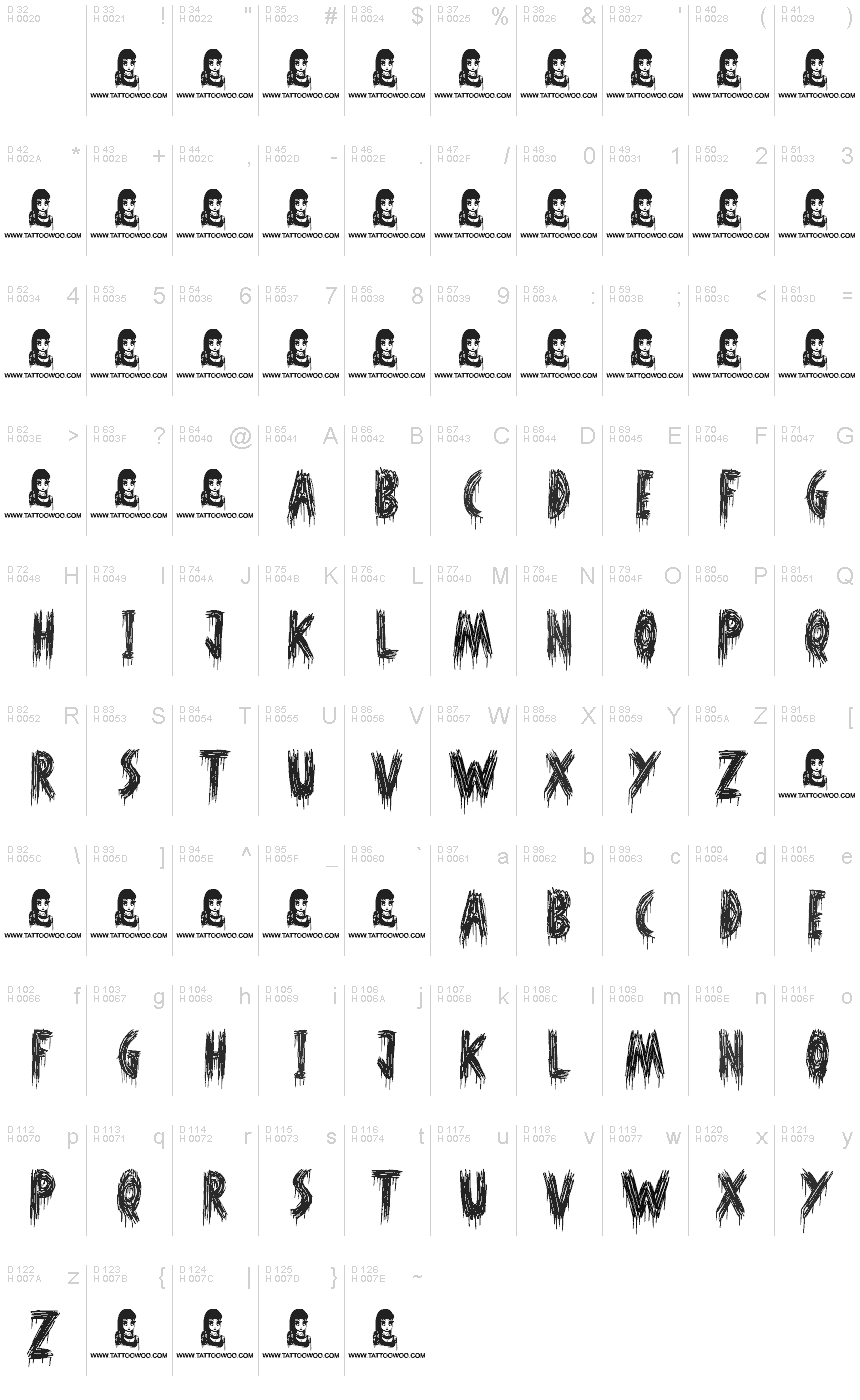
Oh Shit
"Oh Shit" is a bold, distressed display font that evokes a sense of unease and foreboding. Designed by JSH Creates, this condensed typeface features jagged, uneven strokes and sharp, angular edges, creating an unsettling and ominous aesthetic. The overall appearance resembles weathered wood or cracked stone, adding an element of gritty, industrial charm.
This font would excel in horror-themed projects, horror movie posters, haunted house branding, and other applications where a dark, unsettling tone is desired. Its unique character and striking visual impact make it a standout choice for designers seeking to create a sense of unease or danger in their work.